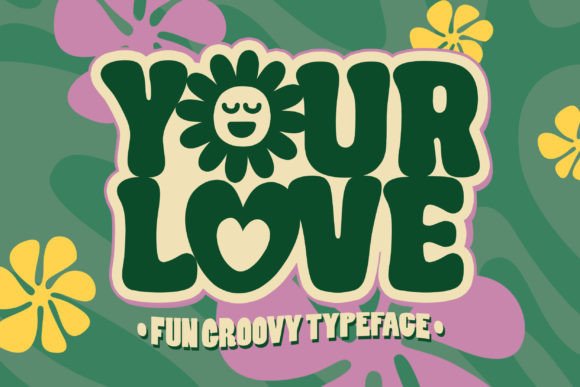
Introducing Your Love Font, the ultimate choice for those seeking a captivating and nostalgic touch to their designs. Crafted by AMost Store, this vintage-inspired Groovy style font is a must-have for any display or product design project.
Your Love Font brings back the essence of the past with its unique retro vibe. While it seamlessly complements vintage designs, don't be fooled, as it effortlessly adds a touch of timeless elegance to modern creations as well. Imagine the impact it will have on magazine headlines or advertisement headlines, instantly grabbing attention and leaving a lasting impression.
With its bold body, Your Love Font commands attention like no other. Each character exudes confidence, making your messages stand out in a crowd. Let the curves and lines of this font take your audience on a journey through time, invoking emotions of nostalgia and excitement.
Unleash your creativity and explore the endless possibilities that Your Love Font offers. Elevate your designs to new heights by infusing them with the charm and allure of this eye-catching font. Whether you're designing a menu, a logo, or a poster, this font will effortlessly enhance the overall aesthetic, making your work truly unforgettable.
The versatility of Your Love Font makes it a valuable asset in the world of design. Its ability to seamlessly adapt to various projects and styles is unmatched. From elegant wedding invitations to edgy album covers, this font transcends boundaries and adds a touch of sophistication to any visual masterpiece.
Experience the magic of Your Love Font today and discover why it has become the go-to choice for designers looking to create truly captivating and unforgettable designs.